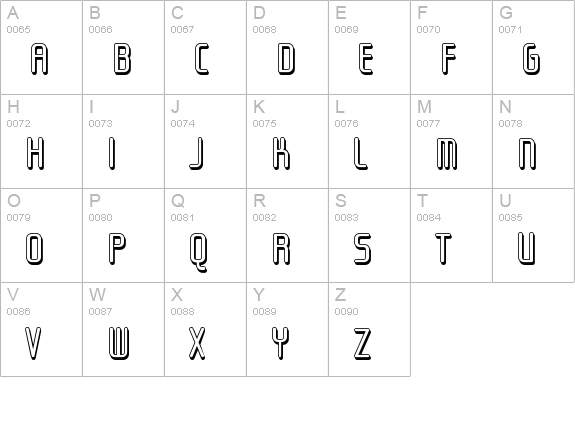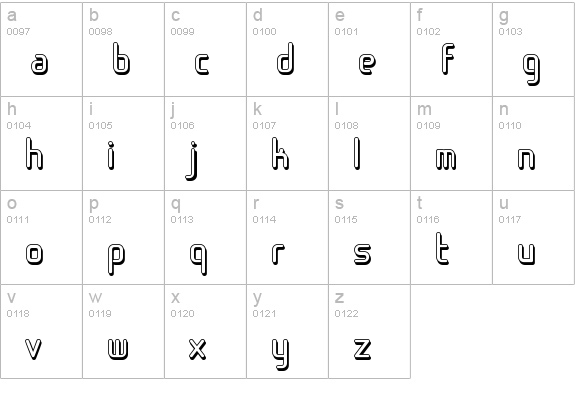
Sugarskin BTN Shadow Font Details
Sugarskin BTN Shadow font is a charming and playful typeface that adds a touch of whimsy to any design project. Its elegant curves and soft shadows create a unique and eye-catching look that is perfect for branding, invitations, posters, and more. This free font is a versatile choice for both digital and print designs, offering a fresh and modern take on classic typography. You can easily download Sugarskin BTN Shadow font for free at FontsMarket.com, where you'll find a wide selection of high-quality fonts to suit all your creative needs. Don't miss out on this opportunity to add a touch of sweetness to your next project with Sugarskin BTN Shadow font.